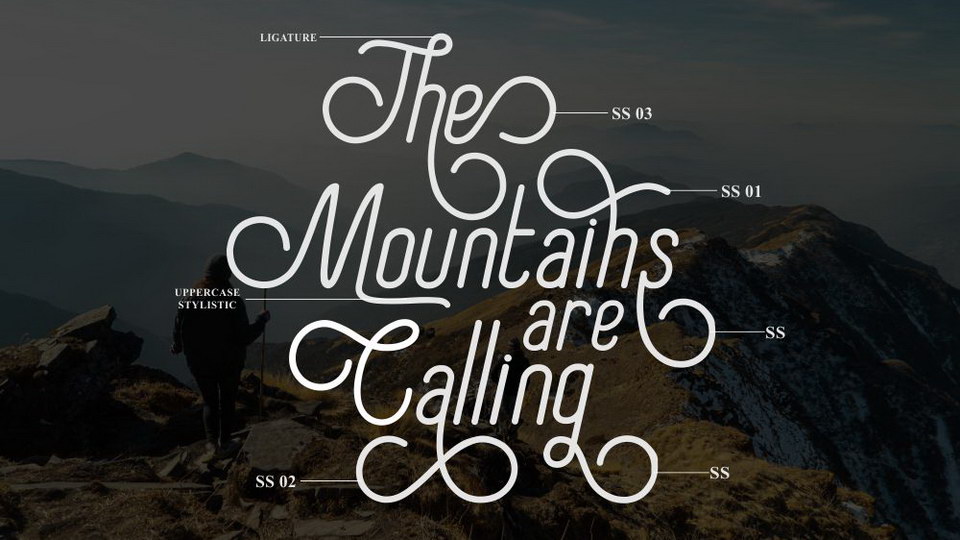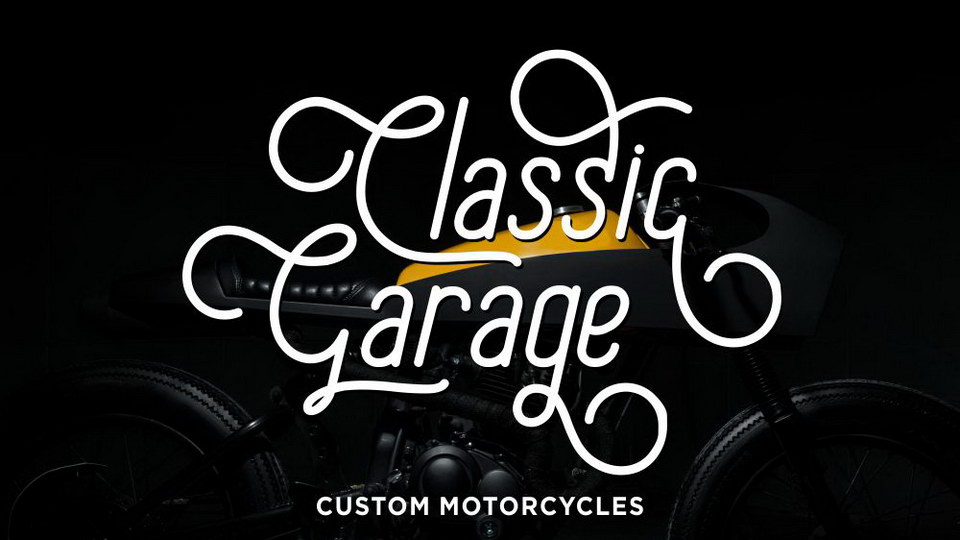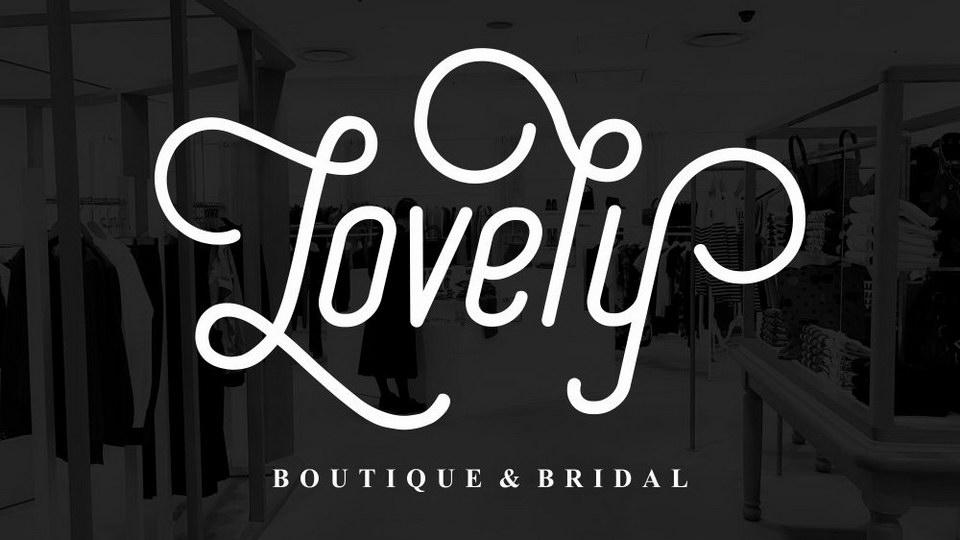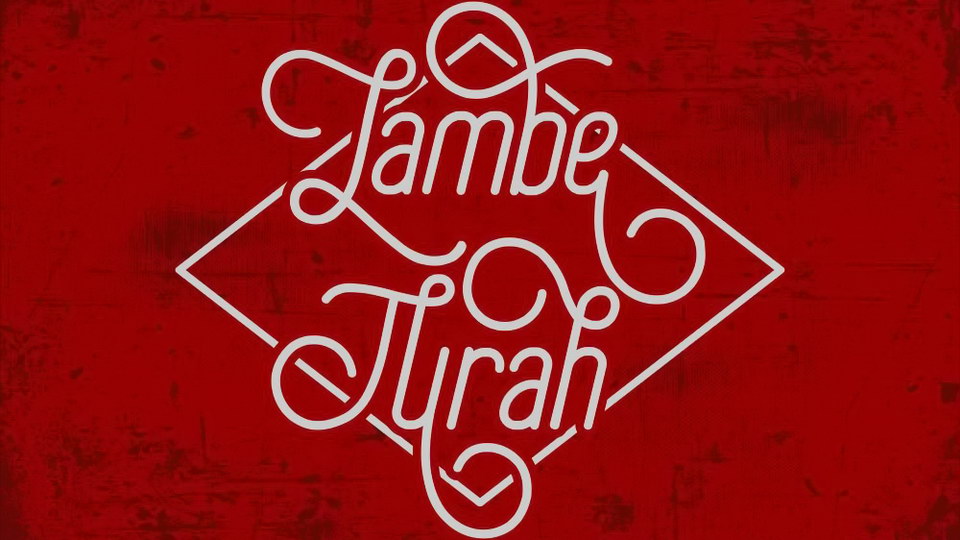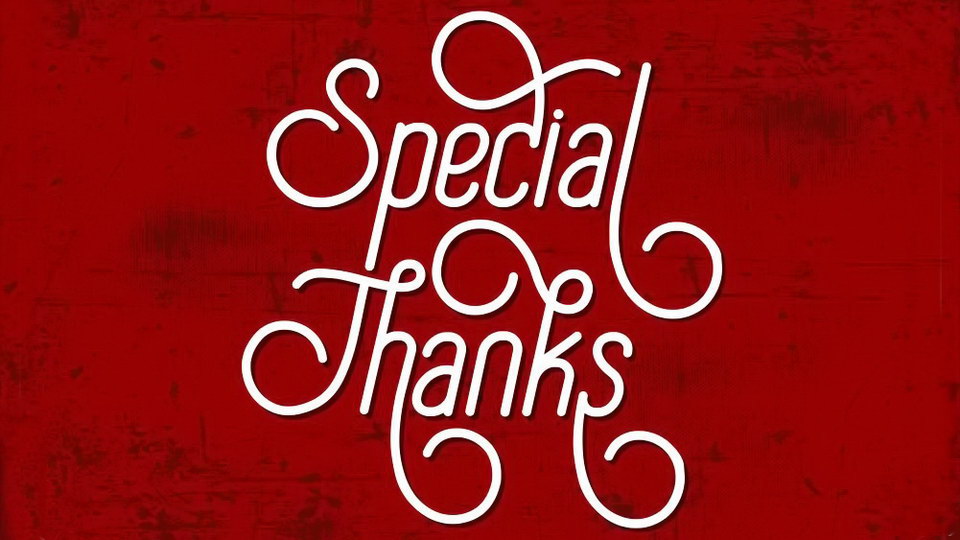
Special Thanks Script
Special Thanks is a charming monoline script font with an incredibly artistic vintage feel. It comes with a lot of stylish alternates.
Special Thanks font is great for logo, labels, badges, stickers or lettering project and more.